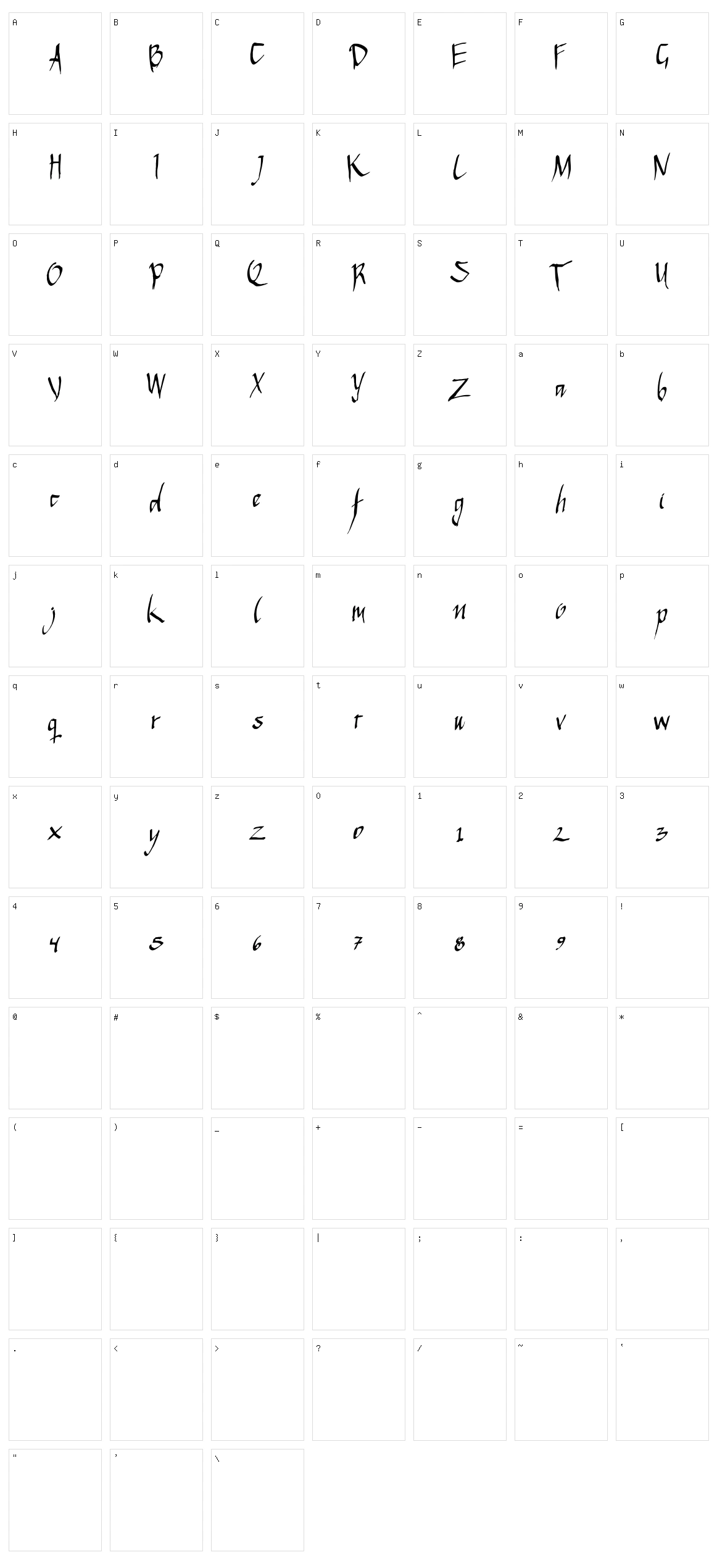
The free font Apantasia 2 is carefully designed by Ernesto Aparicio, showcasing a thoughtful balance of creativity and usability and falls under the Script font style. When you download the ZIP file, it contains only 18.4 KB of font files, making it lightweight and quick to download. Please review the license details below to understand permitted usage and distribution rights. If license information is not available, we recommend using this font for personal projects only or contacting the author directly for commercial usage permissions.